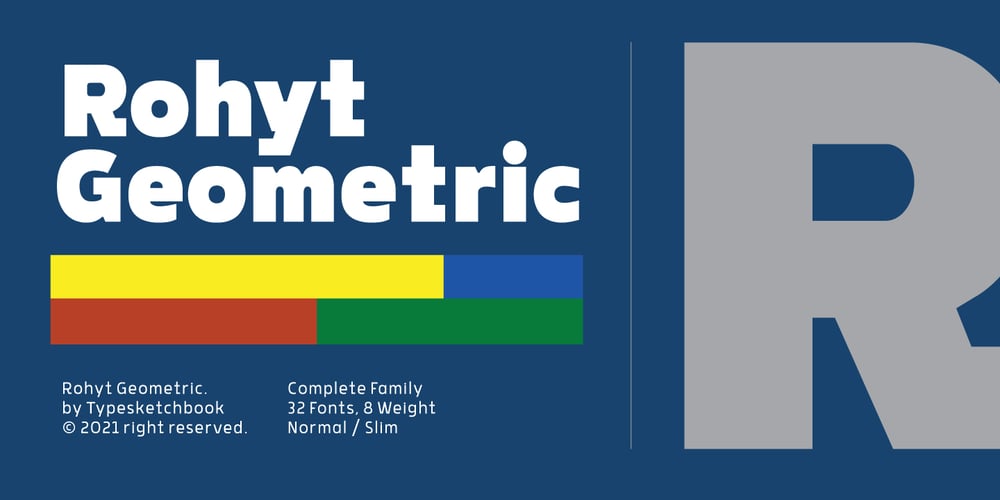
Rohyt Geometric Font Family was designed by Chatnarong Jingsuphatada and published by Typesketchbook. Rohyt Geometric contains 32 styles and family package options. Rohyt Geometric is an altered modified from the form of the original Rohyt typeface. Designed to be more Corporate, the font family has flat terminals that harmonizes with sharp corners. With all of these features, “Rohyt Geometric” is a prominent, eye-catching and unique typeface. It comes with 8 weights with slim option in order to suit for a multifunctional usage, especially for cooperative work, such as website, magazine, editorial, publishing, as well as packaging.